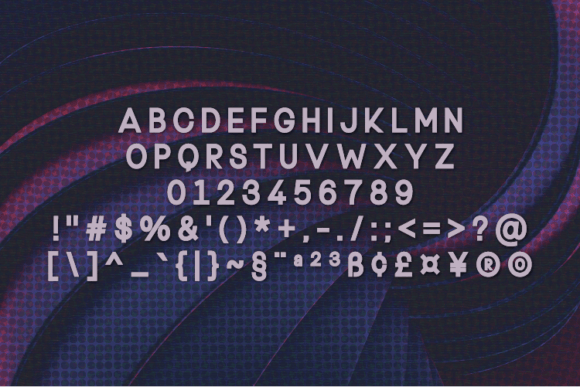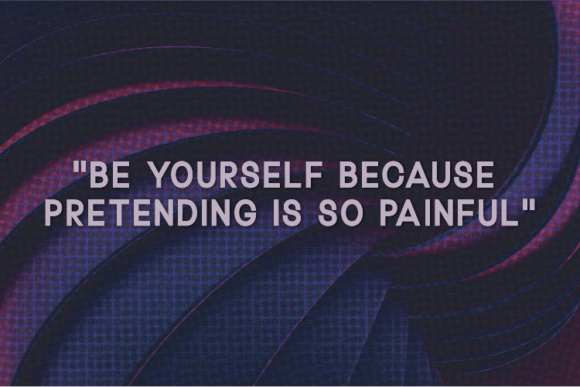
Haloha Font: The Ultimate Sans Serif for Modern Design
In the world of typography, a good font can make all the difference in creating a lasting impression. For designers and crafters, finding the perfect font that embodies versatility and style can be a daunting task. However, look no further than Haloha Font, an all-caps sans serif that is taking the design world by storm.
What is Haloha Font?
Haloha is a modern sans serif font that boasts smooth and clean lines, making it a perfect fit for a wide range of design applications. Its versatility is unmatched, and it looks great in just about any context, from logos and branding to web headings and more.
Key Features of Haloha Font
- All-caps design: Haloha is an all-caps font, making it perfect for headlines, titles, and emphasis.
- Smooth and clean lines: The font features smooth and clean lines, giving it a modern and sophisticated look.
- Touch of contrast: Haloha has just a touch of contrast, which adds depth and visual interest to the font.
- Versatile: The font is versatile and can be used in a variety of design applications, from logos and branding to web headings and more.
Why Choose Haloha Font?
So, why choose Haloha Font over other sans serif fonts? Here are just a few reasons:
- Legibility: Haloha is highly legible, even at small sizes, making it perfect for body text and captions.
- Uniqueness: The font’s touch of contrast sets it apart from other sans serif fonts, giving it a unique and distinctive look.
- Flexibility: Haloha can be used in a variety of design applications, from print to digital.
Design Applications for Haloha Font
Haloha Font is perfect for a wide range of design applications, including:
- Logos and branding: The font’s clean and modern lines make it perfect for logos and branding.
- Web headings: Haloha’s versatility and legibility make it perfect for web headings and titles.
- Print design: The font can be used in a variety of print design applications, from brochures and flyers to posters and business cards.
Tips for Using Haloha Font
Here are a few tips for using Haloha Font in your designs:
- Use it as a headline font: Haloha is perfect for headlines and titles, where its bold and modern lines can make a lasting impression.
- Pair it with a serif font: Pairing Haloha with a serif font can create a beautiful contrast and add visual interest to your design.
- Experiment with different colors: Haloha looks great in a variety of colors, so don’t be afraid to experiment and find the perfect color scheme for your design.
In conclusion, Haloha Font is a versatile and stylish sans serif font that is perfect for modern designers and crafters. Its smooth and clean lines, touch of contrast, and all-caps design make it a great fit for a wide range of design applications. Whether you’re looking to create a logo, brand, or web heading, Haloha Font is a great choice.